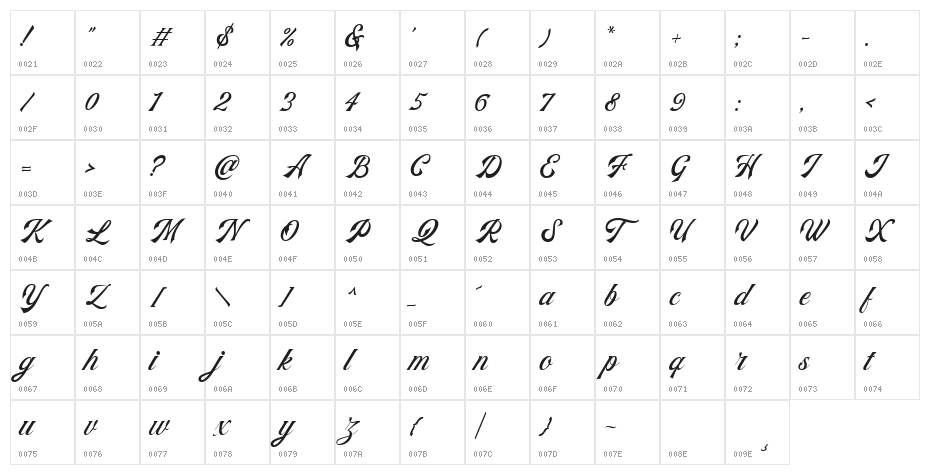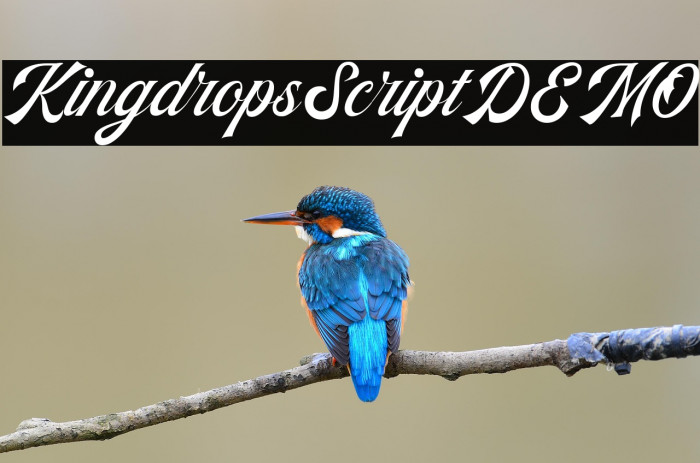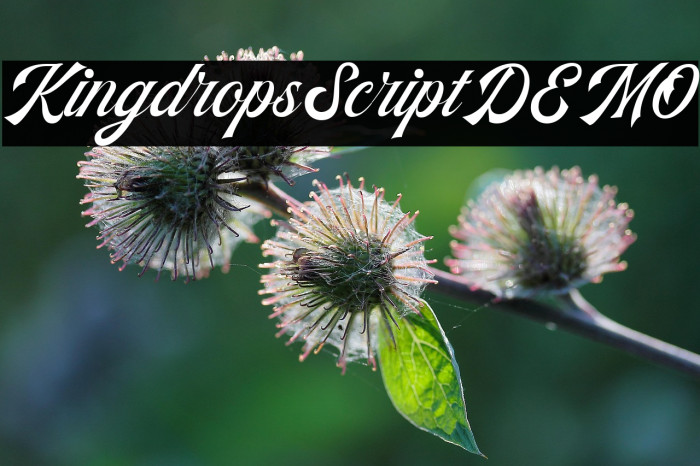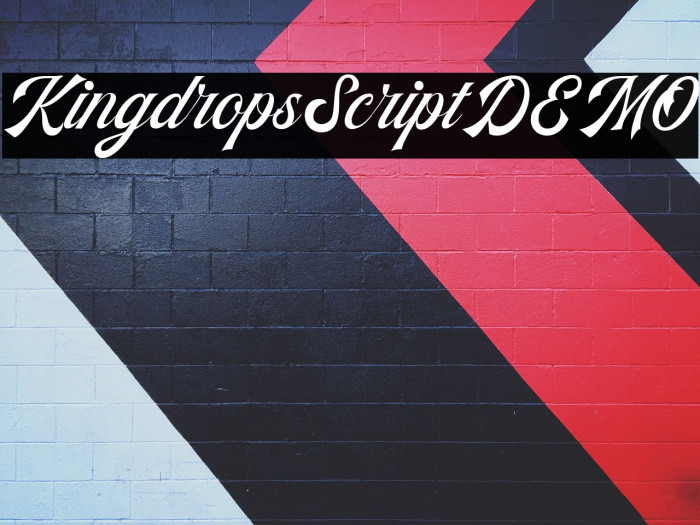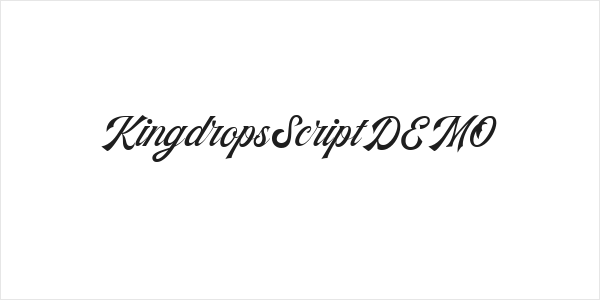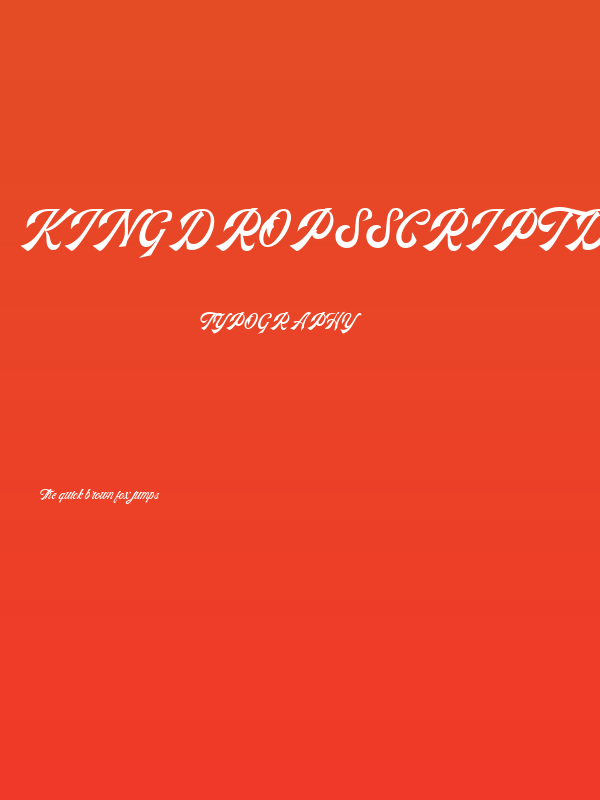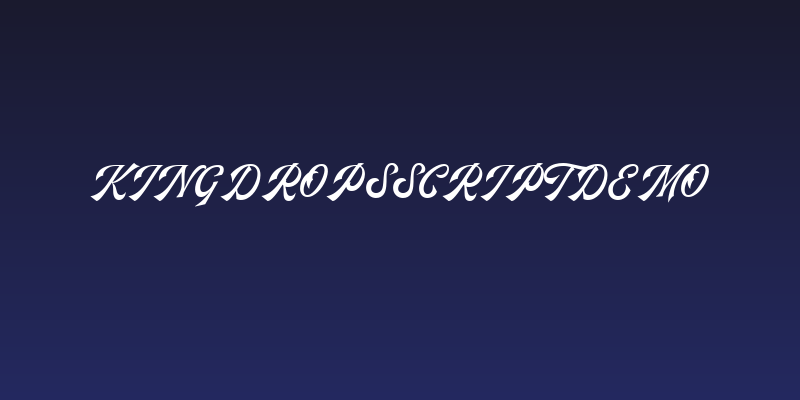
KingdropsScriptDEMO Font
KingdropsScriptDEMO Description
This elegant script font exudes a sense of sophistication and fluidity, characterized by its flowing, cursive style. The letters are interconnected, creating a seamless and graceful appearance. The uppercase letters are ornate, with sweeping curves and flourishes that add a touch of drama. The lowercase letters maintain a consistent rhythm, enhancing readability while preserving the decorative nature of the font. The numerals and special characters are designed to complement the overall aesthetic, ensuring a cohesive look across all text elements. This font is perfect for projects that require a touch of elegance and refinement.
| Overall Style | Elegant |
| Use Case | Logos, Invitations, Decorative headlines |
| Proposed Projects | Ideal for wedding invitations, elegant branding, luxury product packaging, and decorative headlines. |